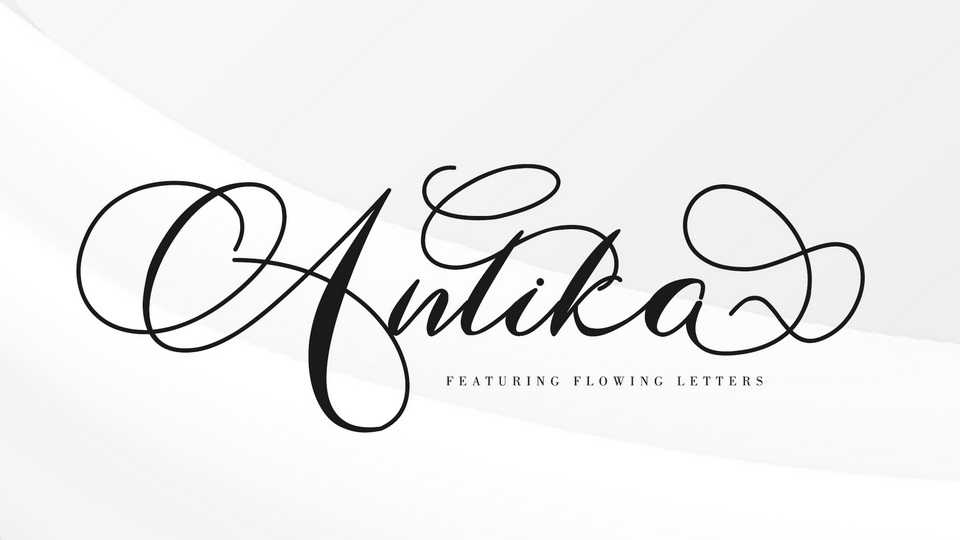
Download Antika font, a stunning modern calligraphy script that featuring flowing letters. Antika will add a romantic touch to any crafting project!
Designer: Thomas Aradea